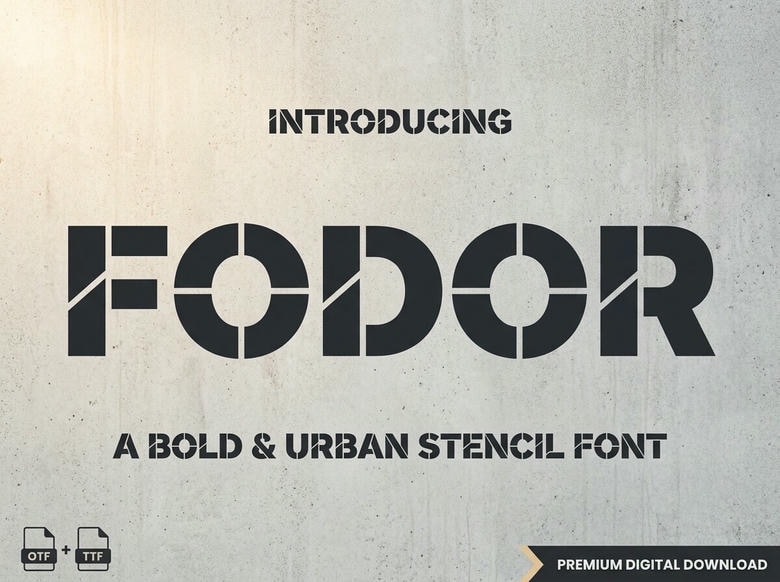
Fodor Font
Fodor is a bold, urban stencil font. It works great for extreme sports branding, streetwear, military-inspired packaging, modern industrial logos, fitness posters, and energetic editorial headlines.
Fodor Display Font